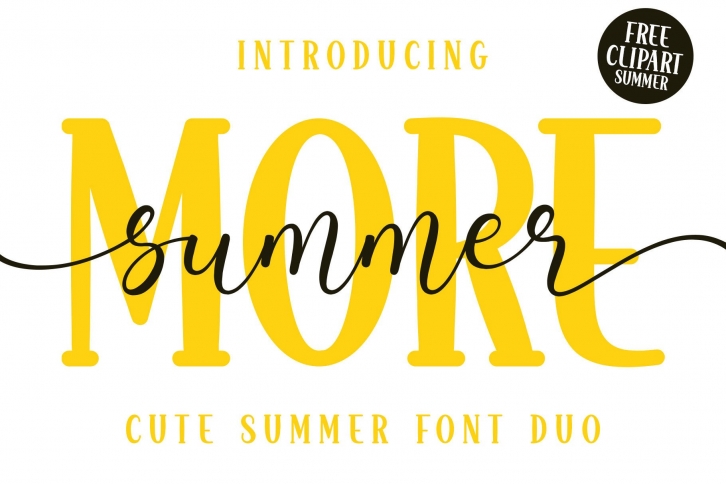
More Summer is a fun and playful font duo with a stylish script and serif display font. This typeface is fresh and lovely and is suitable for cute and attractive summer designs.